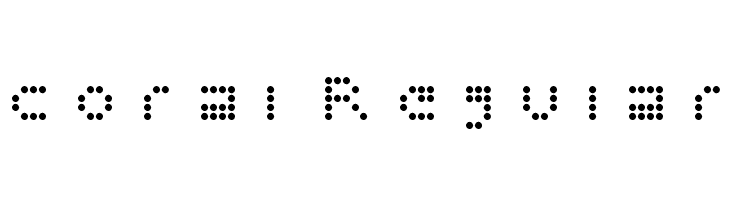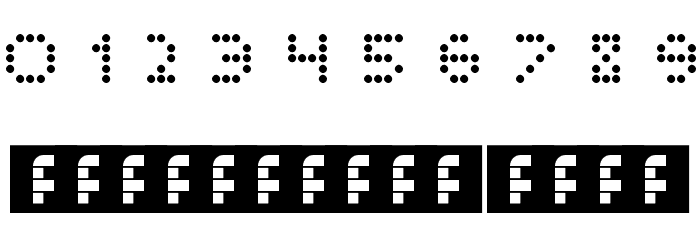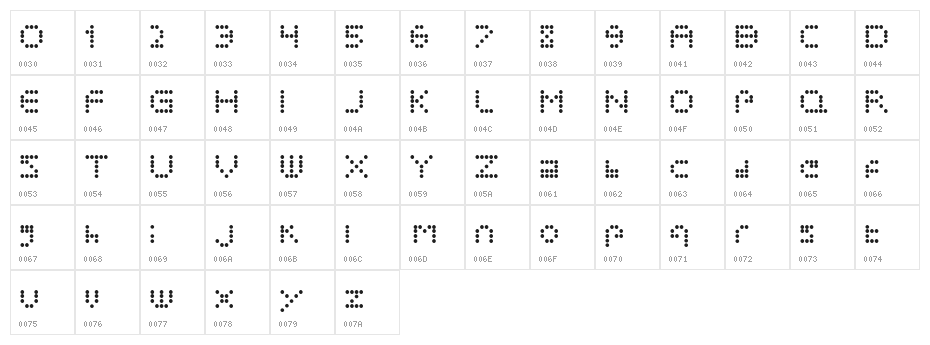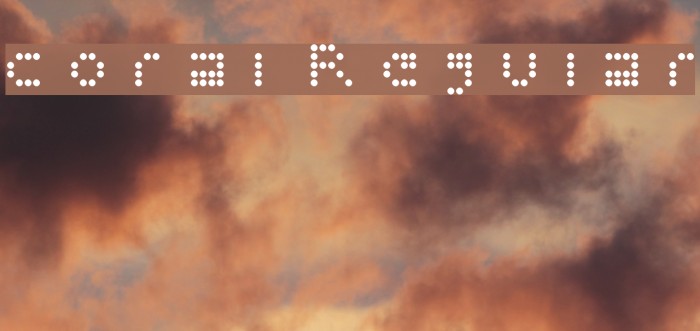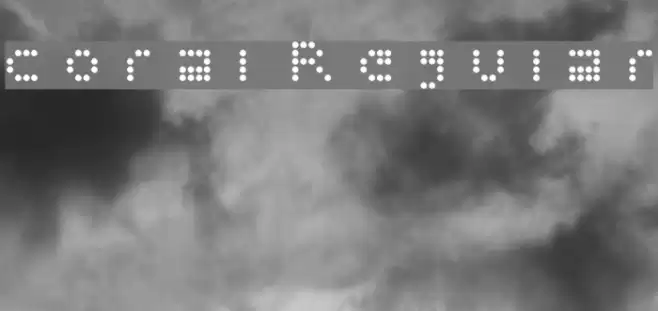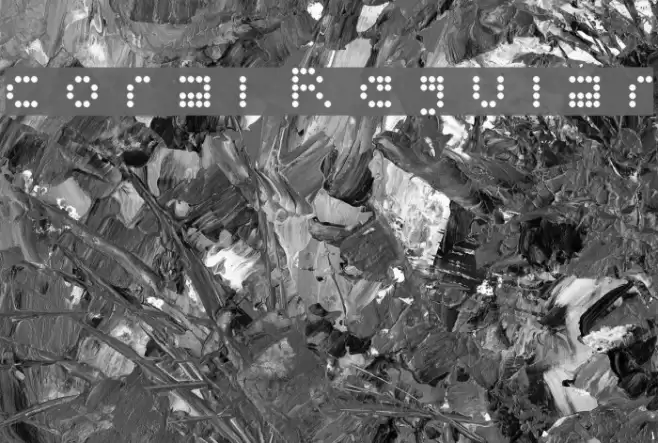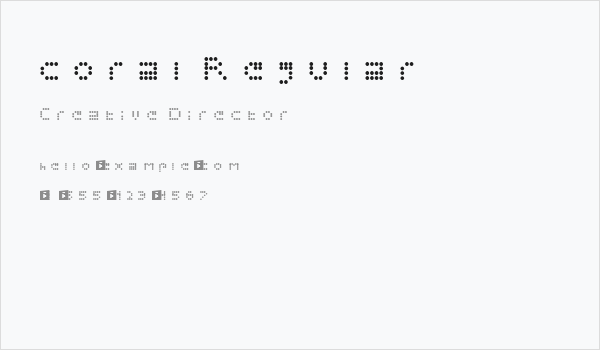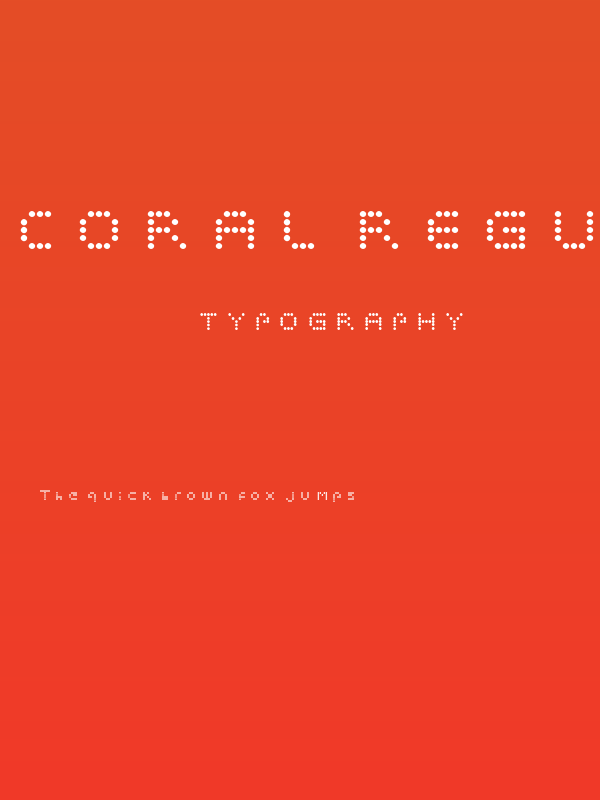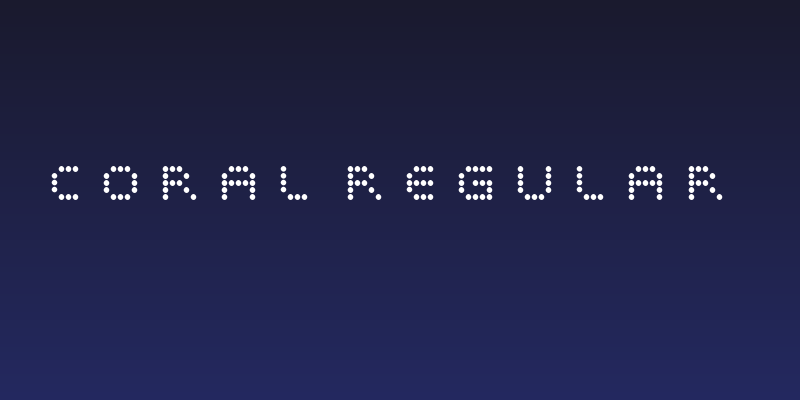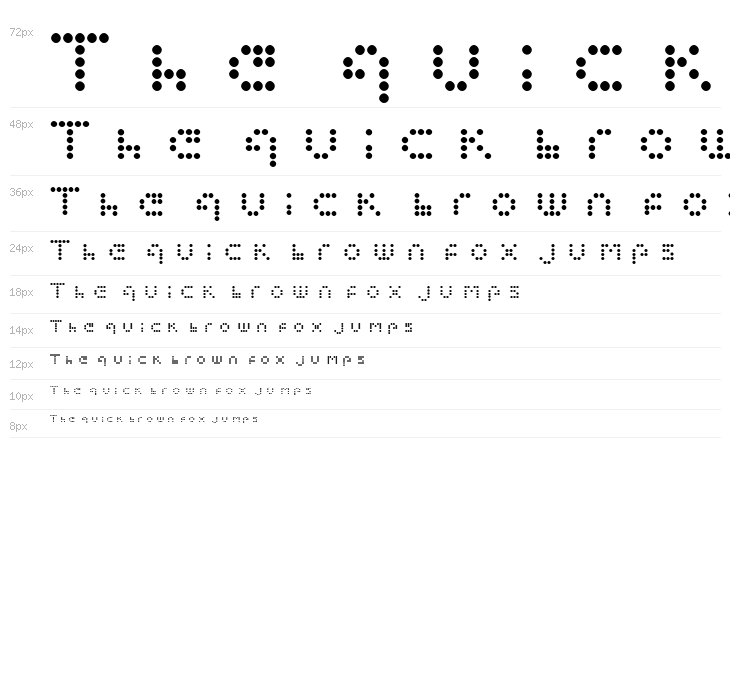
coral Regular Font
coral Regular Description
This font features a unique dotted style, where each character is composed of small, evenly spaced dots forming the shape of letters and numbers. The design is consistent across uppercase and lowercase letters, as well as numerals, creating a cohesive and uniform appearance. The dots are arranged in a grid-like pattern, giving the font a modern and digital feel. This style is reminiscent of LED displays or digital screens, making it suitable for tech-related projects. The font maintains readability despite its unconventional design, with clear distinctions between each character.
| Use Case | Logos, Headlines, Digital displays |
| Proposed Projects | Ideal for digital art, tech branding, futuristic designs, and electronic-themed projects. |